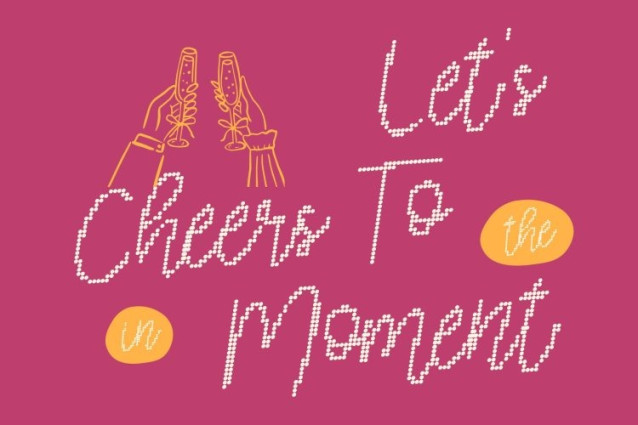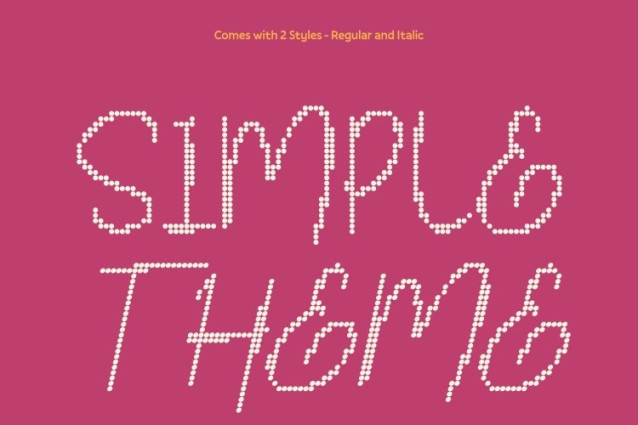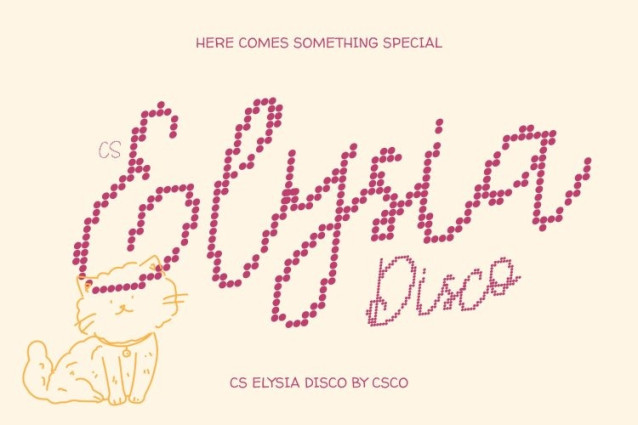
CS Elysia Disco Font
CS Elysia Disco Font is a monoline script font that captures the elegance of smooth, flowing handwriting, now enhanced with a shimmering disco-inspired dotted style. Its graceful curves and balanced rhythm maintain the refined beauty of the original script, while the dotted texture adds a lively sparkle that brings each stroke to life. The result is a script that feels both sophisticated and visually captivating.
Effortless Style with a Luminous Touch
Designed with harmony and precision, this font blends modern luxury with playful brilliance. The consistent monoline structure ensures clarity and elegance, while the disco-style dots introduce a decorative glow that enriches every letter. This balance creates typography that feels polished, stylish, and full of subtle movement.
Perfect for Elegant and Romantic Designs
This font shines in projects that call for beauty and refinement. From wedding invitations and fashion branding to luxury packaging and editorial titles, the font adds a romantic sparkle that enhances every design. Its flowing connections and shimmering details create typography that feels intimate, stylish, and memorable.
Timeless Versatility with Sparkling Personality
With its elegant monoline structure and decorative disco texture, this font adapts effortlessly to both print and digital media. It transforms classic script elegance into a lively visual experience making designs feel graceful, radiant, and uniquely expressive.